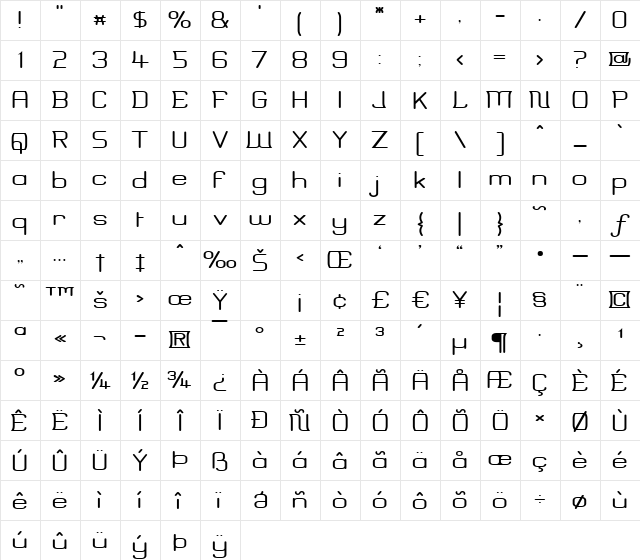
Erinal Wide Regular
| Designer | Graham Meade |
Design Context for Erinal Wide Typeface
Erinal Wide is a composed and adaptable typeface that performs quietly and consistently across a wide range of design contexts.